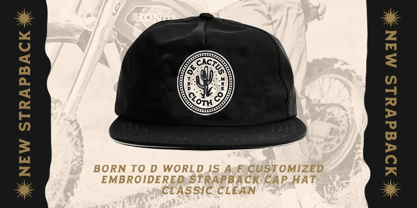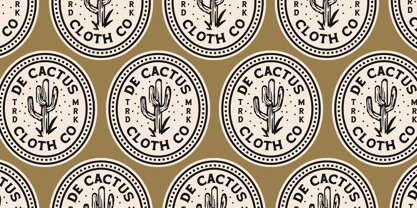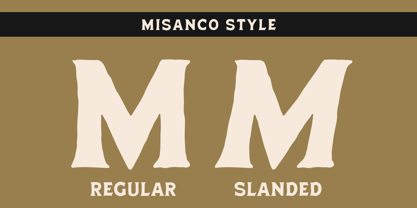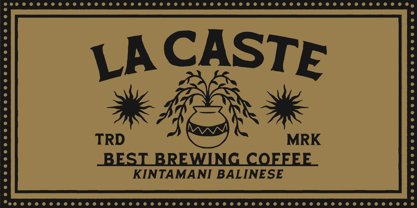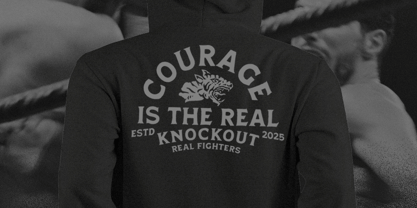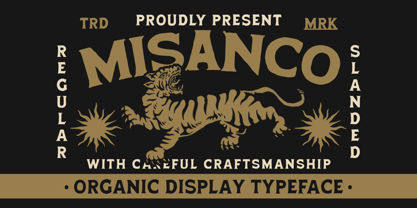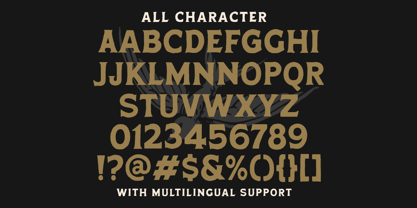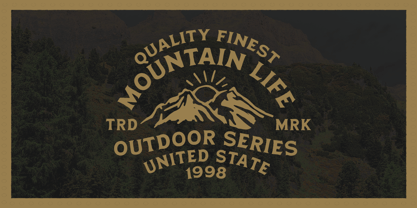
Misanco
Die Schriftfamilie Misanco wurde von Hendry Juanda entworfen und von Letterhend veröffentlicht. Misanco enthält 2 Stile und Familienpaketoptionen. Mehr über diese Familie
Misanco is an organic display typeface with a bold, artistic personality and a vintage-inspired style. Its expressive, handcrafted letterforms create a raw and adventurous feel. Available in Regular and Slanted versions, Misanco evokes a masculine, rugged vibe infused with retro charm, making it ideal for creative projects aiming to stand out with an authentic handcrafted touch. Features include uppercase and lowercase letters, numbers and punctuation, alternates, ligatures, and multilingual support.